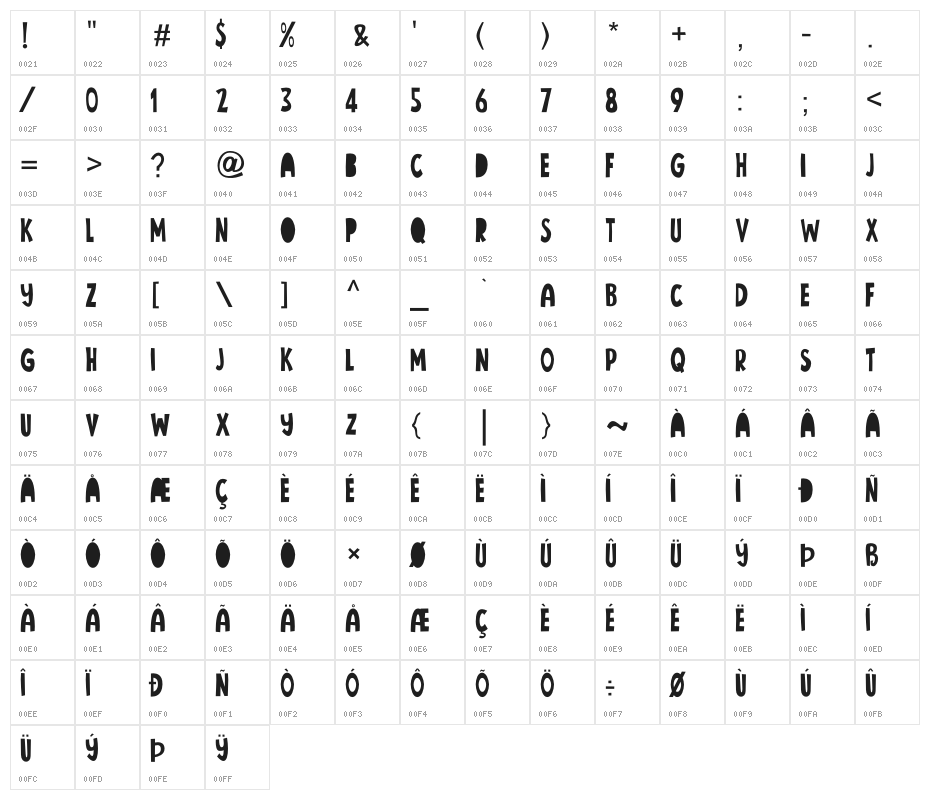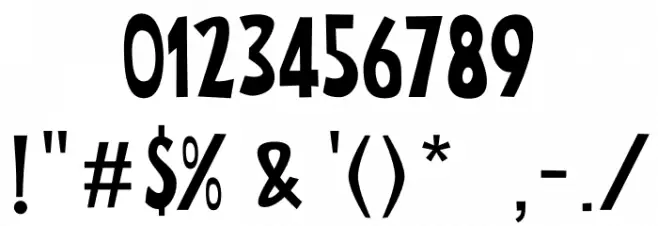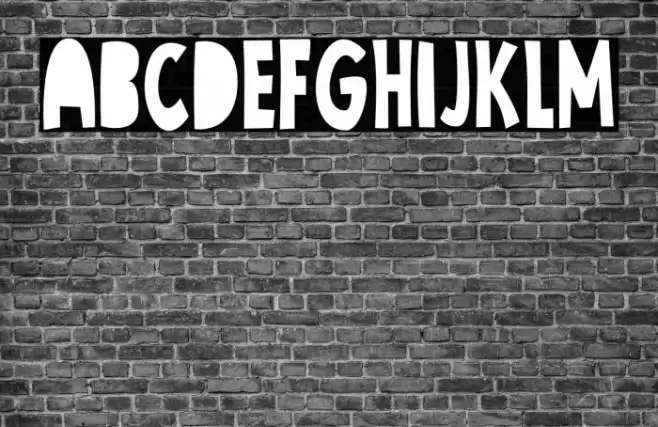
Baylock Font
Baylock Description
This font exudes a playful and bold character, featuring thick, uneven strokes that give it a hand-drawn appearance. The letters are slightly irregular, adding to its whimsical and informal style. The uppercase and lowercase letters maintain a consistent height, while the numbers and special characters complement the overall design with their quirky shapes. This font is perfect for projects that require a fun and engaging aesthetic, making it ideal for children's books, posters, or any creative design that seeks to capture attention with its lively and dynamic presence.
| Overall Style | Playful, Whimsical |
| Use Case | Headlines, Posters, Creative Designs |
| Proposed Projects | Ideal for children's books, posters, and creative designs needing a lively touch. |